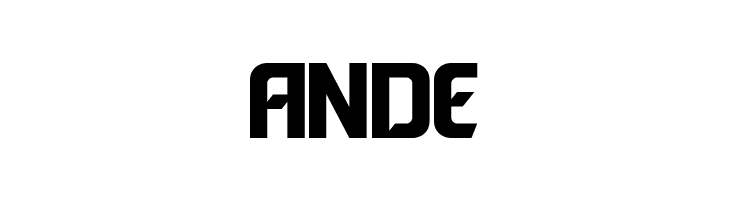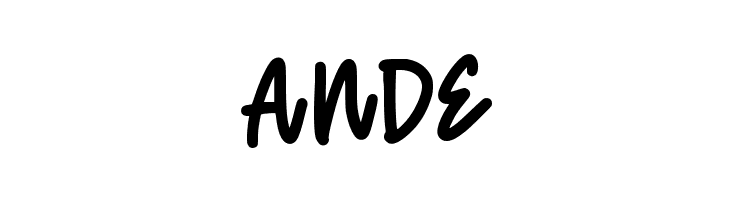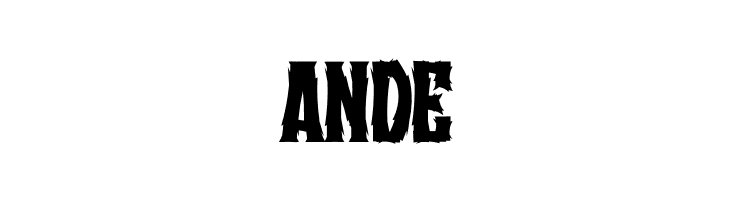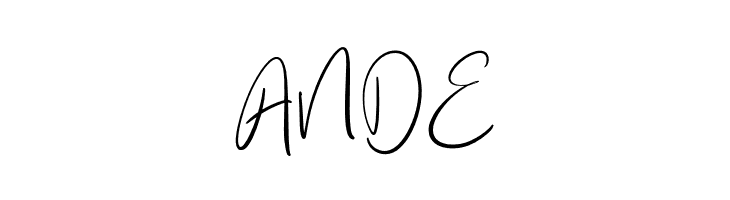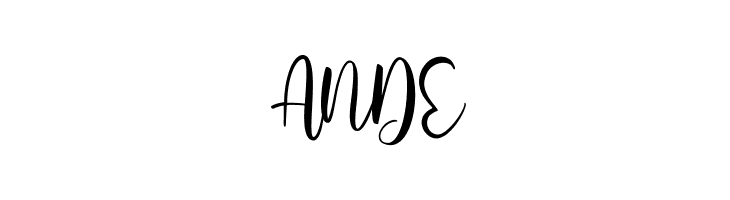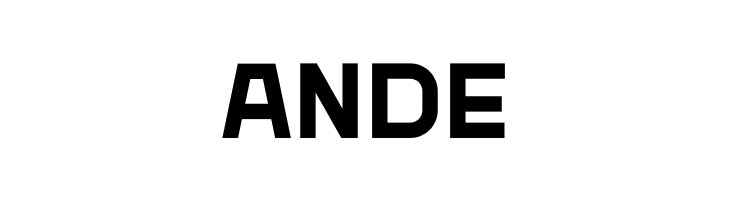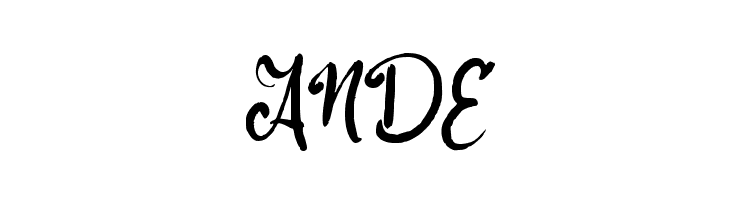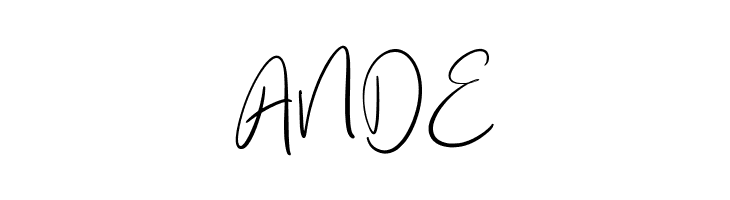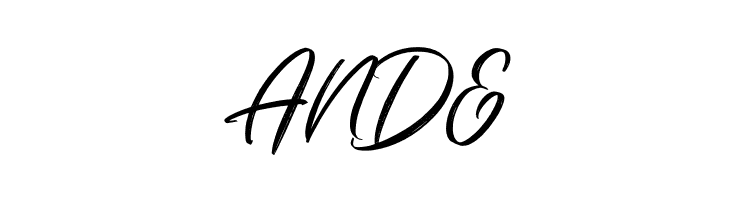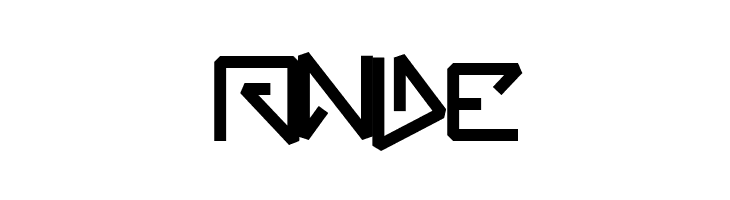
A cursive, handwritten-style font with elegant, flowing lines.
A lively and expressive script font with fluid, interconnected strokes.
A lively, expressive script font with fluid, dynamic strokes and a modern aesthetic.
A fluid and elegant handwritten font with smooth curves and flowing lines.
A fluid and elegant script font with a natural handwriting style.
A dynamic and elegant script font with fluid, interconnected strokes.
An elegant script font with flowing, high-contrast strokes and graceful curves.
An elegant script font with flowing, interconnected letters and refined style.
A dynamic, cursive font with a handcrafted, italic style.
A bold, playful handwritten font with thick strokes and rounded edges.
A geometric, angular font with a futuristic and edgy design.
A dynamic handwritten font with fluid, expressive strokes.
A dynamic, calligraphic font with fluid, expressive strokes.
An elegant script font with decorative swirls and flowing lines.
An elegant script font with flowing, cursive letters and ornate details.
A bold, modern sans-serif font with clean, geometric lines.
A bold, dynamic brush script font with energetic strokes.
A bold, geometric font with sharp angles and a modern aesthetic.
A bold, geometric font with a modern and assertive style.
A bold, textured font with a vintage, handcrafted appearance.
A bold, geometric font with a modern and impactful design.
A bold, brush-style font with dynamic, hand-drawn characters.
An elegant script font with a modern stencil effect, featuring ornate swashes and loops.
A bold, modern font with clean, geometric lines ideal for impactful headlines.
A bold, expressive handwritten font with dynamic strokes and artistic flair.
A decorative font with elegant swashes and artistic flourishes.
A bold, jagged font with sharp angles and irregular shapes.
A bold, jagged font with a graffiti-inspired, energetic style.
A bold, energetic script font with a hand-drawn, dynamic style.
A bold, handwritten font with a playful and casual style.
A bold, handwritten-style font with dynamic and expressive characters.
A bold, expressive handwritten font with dynamic strokes and a modern flair.
A playful handwritten font with flowing, interconnected letterforms and a whimsical style.
A lively and expressive script font with fluid, cursive strokes.
A bold, brush-style script font with dynamic strokes and a lively, artistic feel.